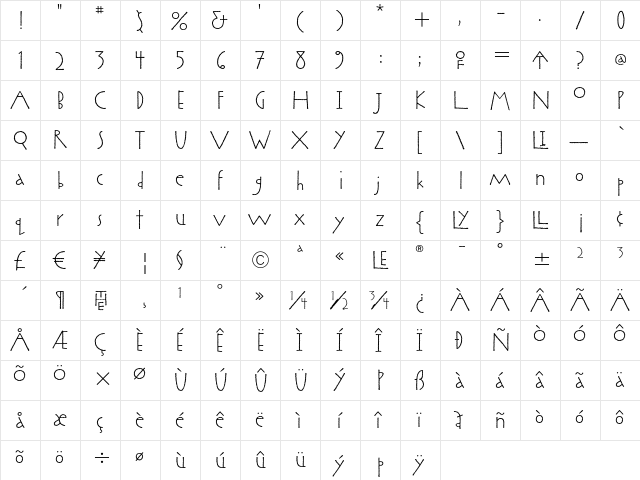
Kumquat ITC Regular Font Preview
Kumquat ITC Regular
Kumquat ITC Regular Font Details
Design Context for Kumquat ITC Typeface
Kumquat ITC offers clean, dependable letterforms without strong stylistic allegiance, making it a practical choice for designers who need flexibility.
Pro Tip: Use Kumquat ITC in both headline and body roles to test its range before committing to a single application.